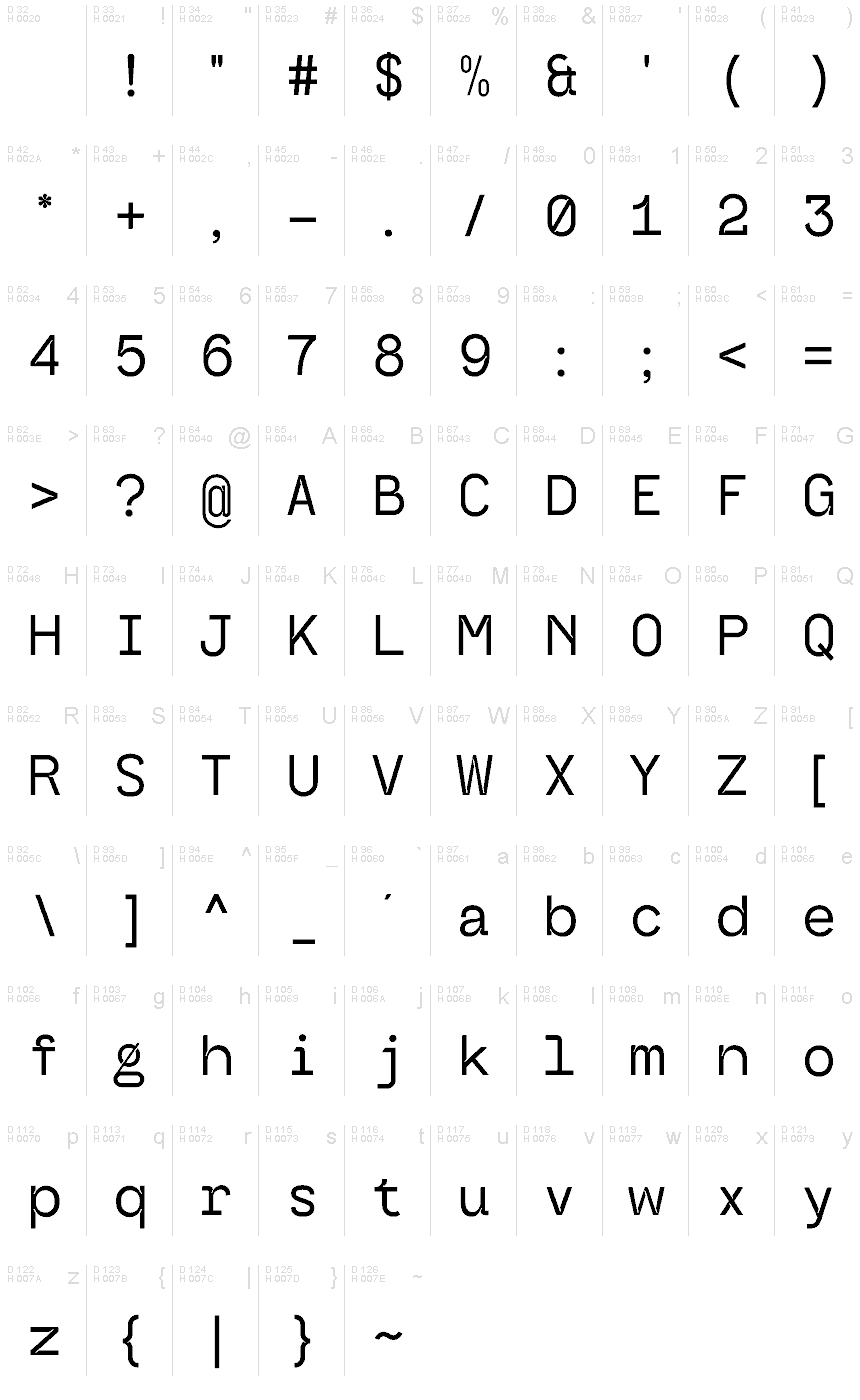
MGN Edinson Semibold
MGN Edinson Semibold font by Studio Morgana.id is part of a modern sans-serif typeface family with a geometric twist. Geometric shapes, minimalistic design, and clean lines make this easily legible and visually elegant style. MGN Edinson supports unhampered reading in both printed or digital platforms.
MGN Edinson is your go-to choice for branding projects, advertising, magazines, newspapers, infographics, posters designs, websites or mobile applications. The font can also be used in packaging/label designs as well as invitation cards among other similar projects.